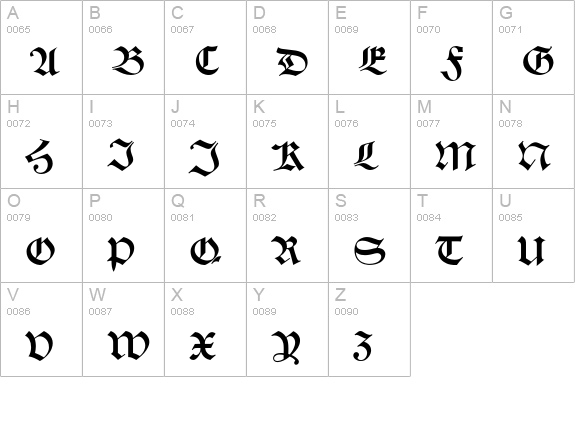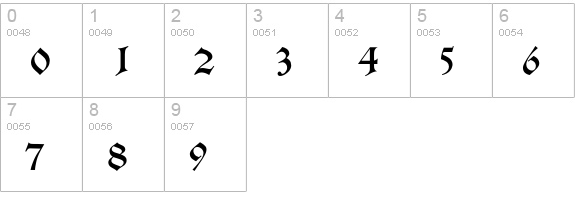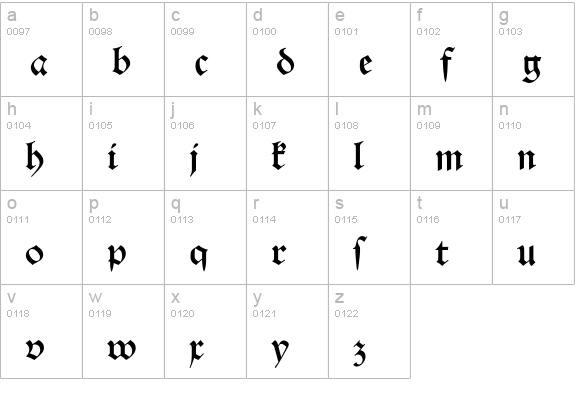
Alte Schwabacher Font Details
Alte Schwabacher is a classic and elegant blackletter font that exudes a sense of history and tradition. Its distinctive Old English style features ornate swirls and sharp angles, making it perfect for adding a touch of vintage charm to your designs. The rich history of this font dates back to the 15th century, giving it a timeless appeal that is sure to captivate your audience. The Alte Schwabacher font is not only visually striking but also versatile, making it suitable for a wide range of design projects such as logos, invitations, posters, and more. Whether you're looking to create a medieval-inspired design or add a touch of sophistication to your branding, this font is sure to make a statement. What's even better is that Alte Schwabacher is available for free download at FontsMarket.com. This means you can easily access this beautiful font and incorporate it into your projects without any cost. So why wait? Add a touch of Old World charm to your designs with the timeless Alte Schwabacher font today!